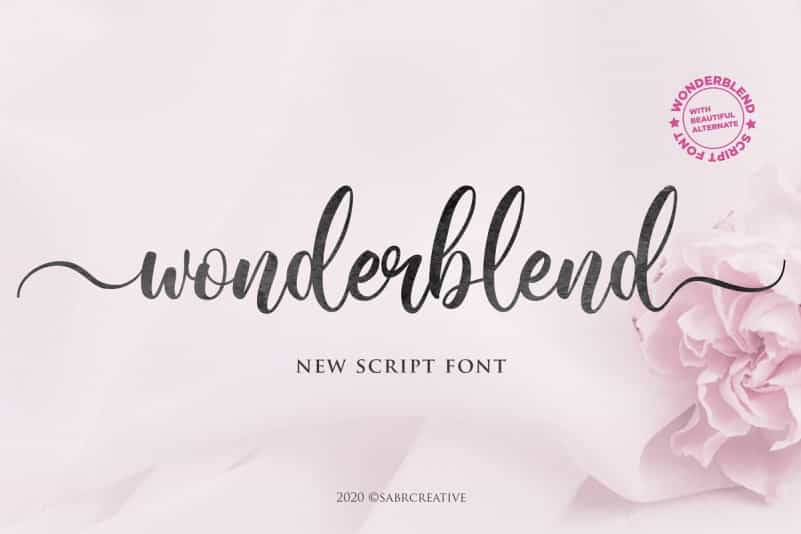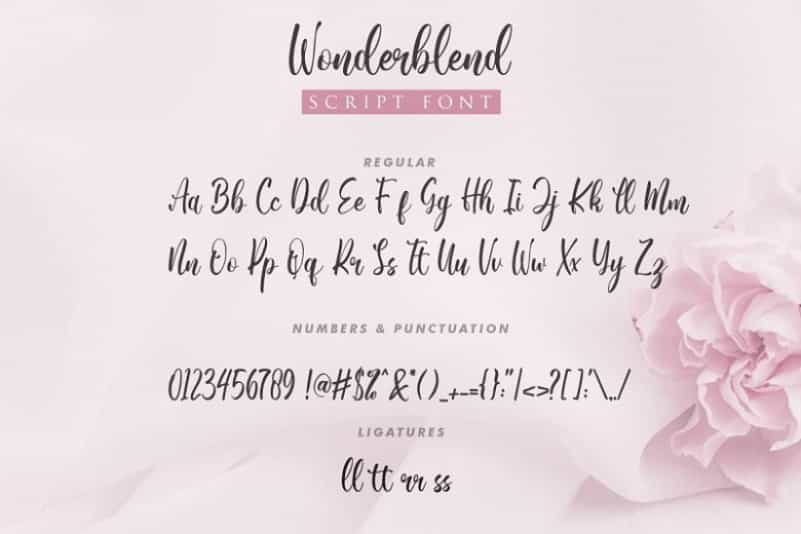
Discover Wonderblend Calligraphy Font, part of the Calligraphy collection—a versatile and unique font perfect for adding a personal touch to your projects. Download it for free and enjoy crafting designs with style, from invitations to social media posts. This font is available exclusively for personal use, giving you the freedom to create without limits. Unlock your creativity with Wonderblend Calligraphy Font today!
Wonderblend is a modern calligraphy font! Wonderblend is a creative calligraphy typeface that has got the bounce in it. This font is the best for fashion brand, wedding invitation, business card, logo brand, signature and also for calligraphy purpose.